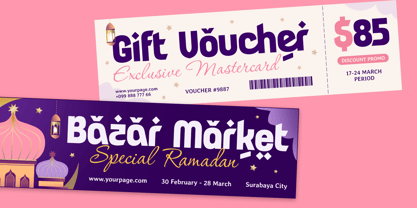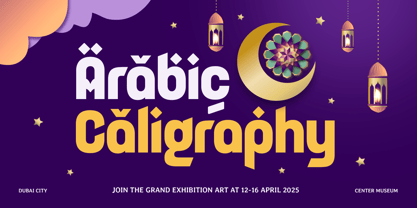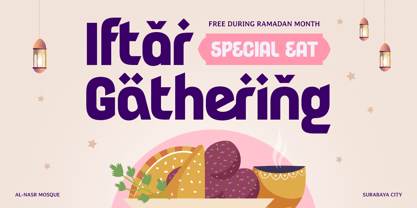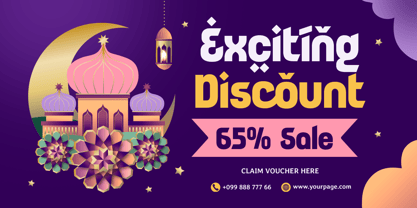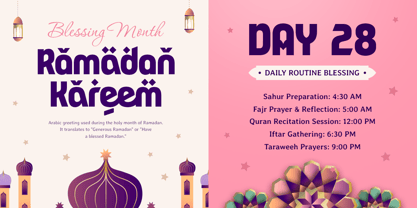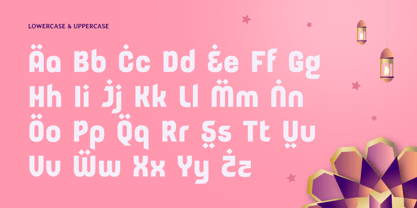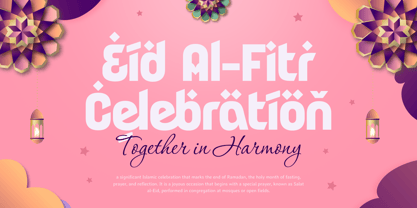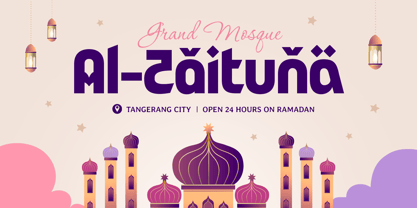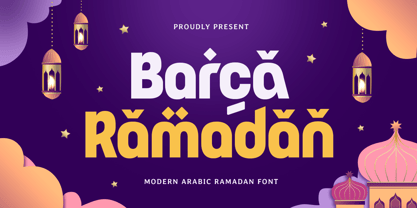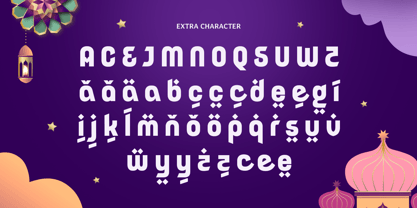
Barca Ramadan
La familia tipográfica Barca Ramadan fue diseñada por Zamroni Hamzah y publicada por Sensatype Studio. Barca Ramadan contiene 1 estilos. Más información sobre esta familia
Barca Ramadan - Modern Arabic Ramadan Font
Barca Ramadan is a modern Arabic font, thoughtfully designed to enhance your Ramadan-themed projects with sophistication and cultural depth. Its clean yet ornate design makes it perfect for festive branding, event invitations, social media content, and promotional materials celebrating the holy month of Ramadan.
Inspired by the rich heritage of Arabic calligraphy, Barca Ramadan brings a fresh and contemporary aesthetic to your creations. Whether you're designing for digital or print, this font delivers a harmonious blend of tradition and modernity. Its unique style ensures your designs reflect the essence of Ramadan while standing out with elegance and clarity.
Let Barca Ramadan be the heart of your creative projects this Ramadan season. Its versatility and luxurious character will elevate your work, making it memorable and culturally resonant for your audience.
Barca Ramadan Modern Arabic Font Features:
• Elegant Arabic Characters for Festive Projects
• Ideal for Ramadan and Islamic-Themed Designs
• Punctuation, Numbers, and Symbols
• Uppercase and Lowercase
• Opentype Features
Multilingual Characters available for:
Afrikaans, Albanian, Asu, Basque, Bemba, Bena, Breton, Chiga, Cornish, Dutch, English, Estonian, Filipino, Finnish, Friulian, Galician, German, Gusii, Indonesian, Irish, Italian, Kabuverdianu, Kalenjin, Kinyarwanda, Luo, Luxembourgish, Luyia, Machame, Makhuwa-Meetto, Makonde, Malagasy, Manx, Morisyen, North Ndebele, Nyankole, Oromo, Portuguese, Quechua, Romansh, Rombo, Rundi, Rwa, Samburu, Sango, Sangu, Scottish Gaelic, Sena, Shambala, Shona, Soga, Somali, Spanish, Swahili, Swedish, Swiss.